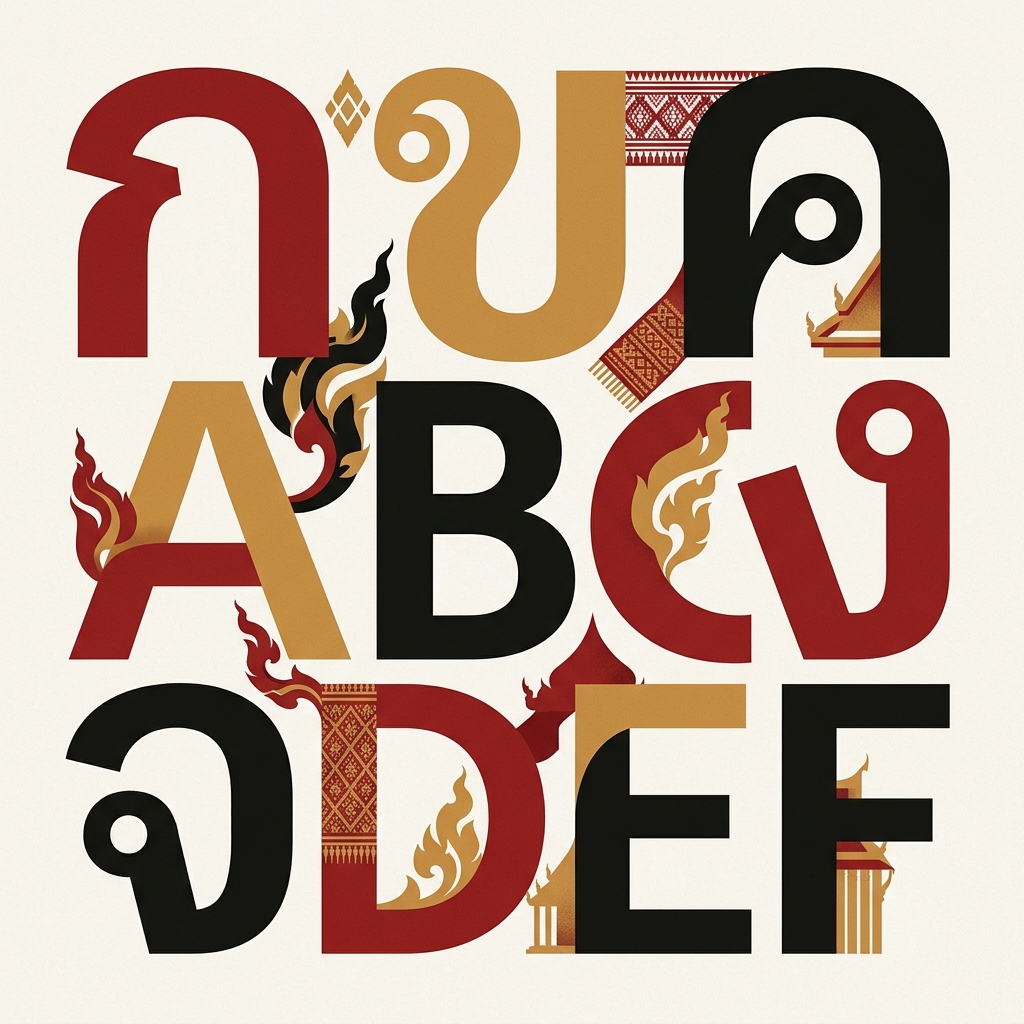
DB Ozone X
ดีบี โอโซน เอ็กซ์
DB Ozone X specimen showing Thai and Latin characters
Designer
Parinya Rojarayanond
Foundry
DB Fonts (DB Designs Co., Ltd.)
Weights
UltraLight, Light, Regular, Medium, Bold
Latin support
Yes
What DB Ozone X is
DB Ozone X is a paid Thai display sans from DB Fonts (DB Designs Co., Ltd.) in Bangkok, drawn by Parinya Rojarayanond (ปริญญา โรจน์อารยานนท์) and sold as a ten-style family for 1,070 THB. It is not on Google Fonts, the foundry publishes no free or trial tier, and the only legitimate source is DB’s own shop.
The design brief is on the record. In the foundry’s design-notes article of 15 May 2008, Rojarayanond writes that DB Ozone takes its DNA from DIN, the German industrial standard face, and that two DIN traits carry into Thai: geometric stroke construction and unusually open spacing. He also says he reused the “standard-ness” of DB Sathorn — a face already proven by long use — and then held the geometry strictly.
DB is short for Dear Book Design. Luc Devroye’s type reference records it as the first Thai digital type foundry, established in the late 1980s and founded by Rojarayanond. It is the same catalogue that produces DB Helvethaica X, DB Adman X and DB ThaiText; the whole set is indexed under DB fonts.
Every DB Ozone X weight, including Bold
DB Ozone X ships five weights — UltraLight, Light, Regular, Medium and Bold — each with an italic, for ten styles in one family. The shop lists them under these exact names:
UltraLightDB Ozone UltraLight / UltraLight Italicvery large headlines, editorial openers
LightDB Ozone Light / Light Italicdisplay setting with air; not for small sizes
RegularDB Ozone / DB Ozone Italicsubheads, captions, short blocks
MediumDB Ozone Medium / Medium Italiclabels, secondary headlines, interface text